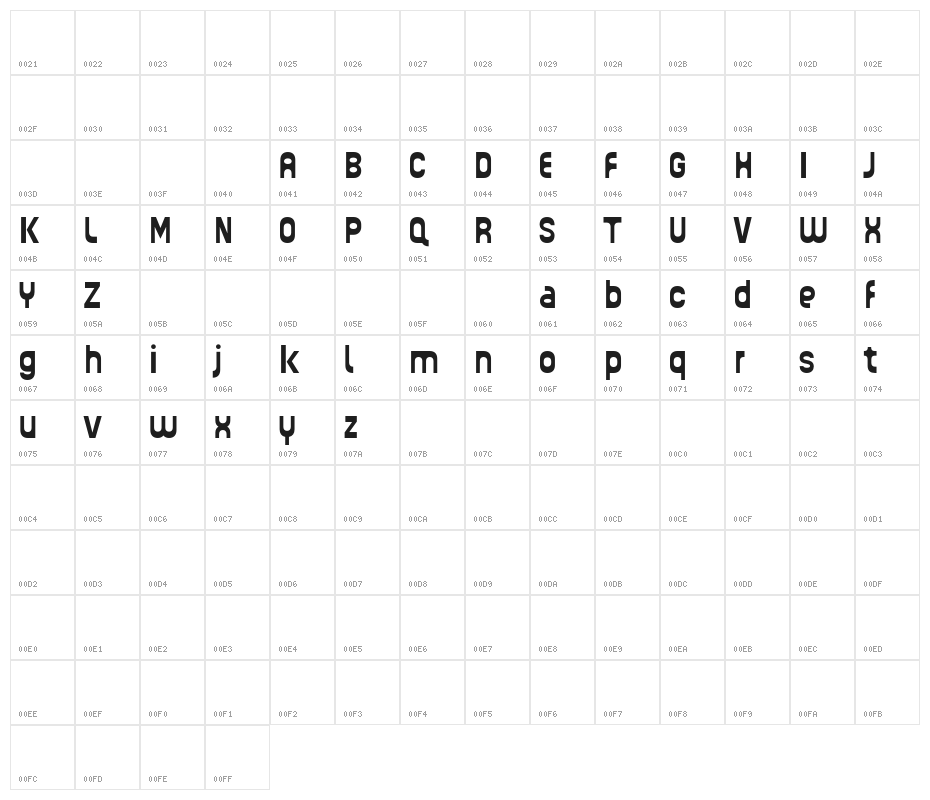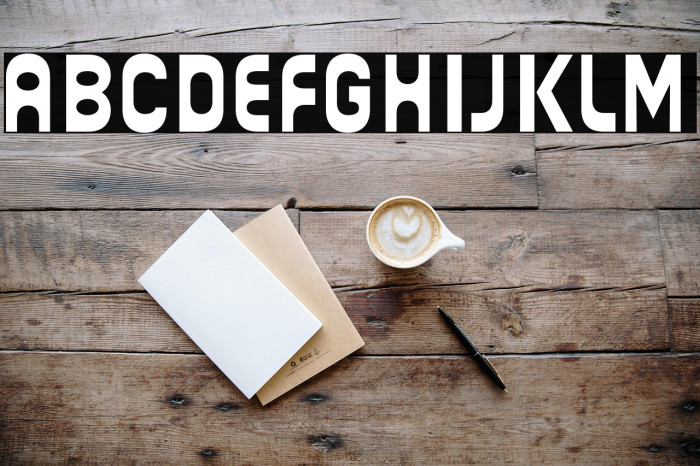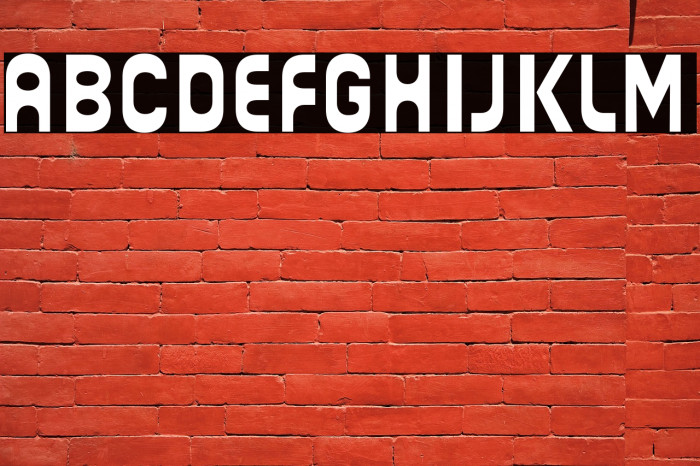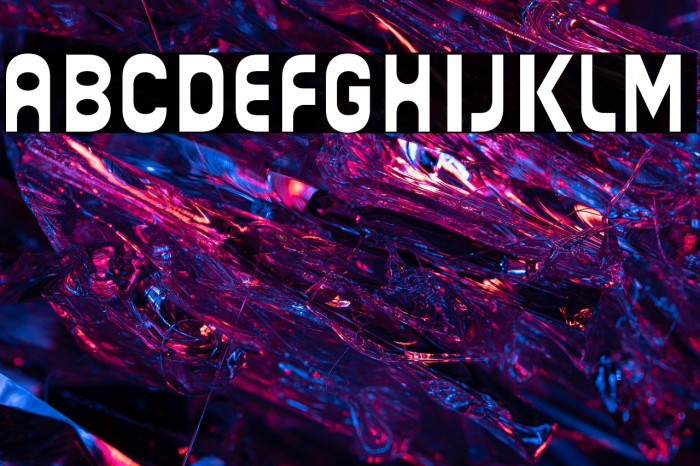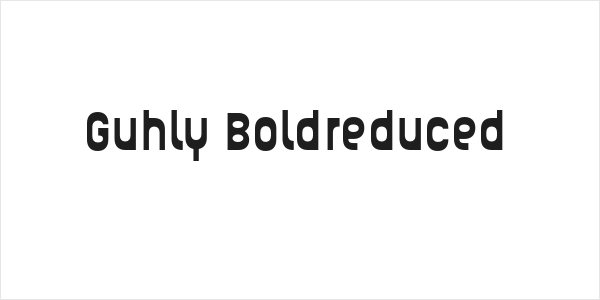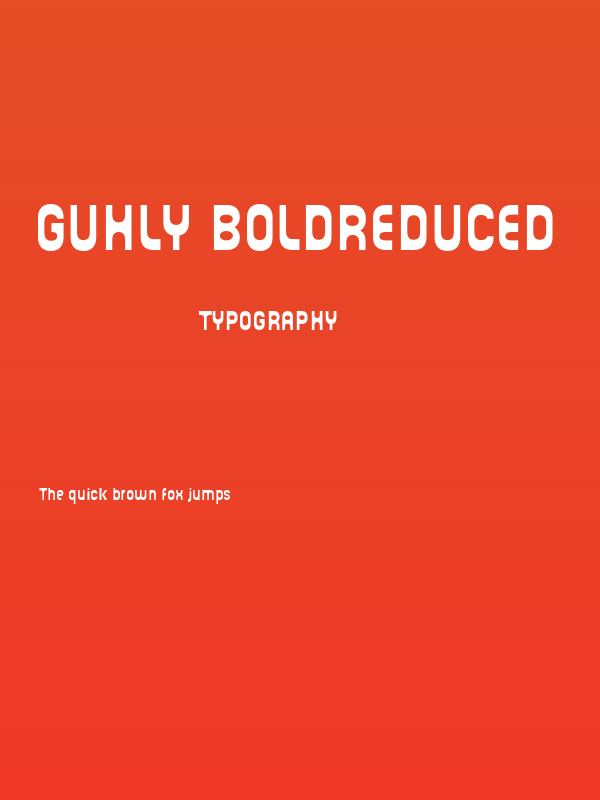
Guhly-Boldreduced Font
Guhly-Boldreduced Description
This font exhibits a bold, modern style with a geometric sans-serif design. The characters are uniformly thick, providing a strong and assertive appearance. The rounded edges and consistent stroke width give it a friendly yet professional look. The uppercase and lowercase letters maintain a harmonious balance, making it versatile for various design needs. The font's clean lines and lack of serifs contribute to its contemporary aesthetic, making it suitable for digital and print media. Its boldness ensures readability and impact, ideal for catching attention in headlines or branding materials.
| Use Case | Headlines, Branding, Posters |
| Proposed Projects | Ideal for branding, headlines, posters, and digital media where a strong, modern presence is desired. |